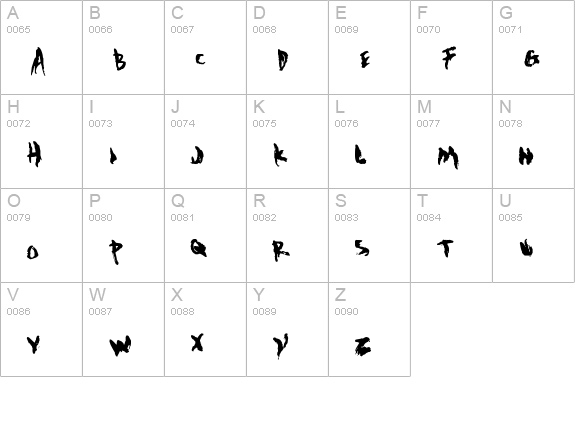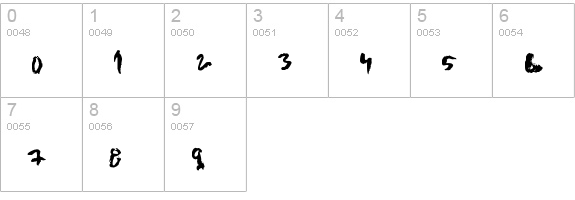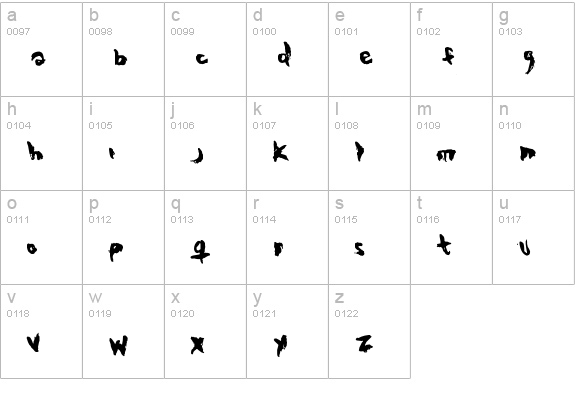
The Evil Cop Font Details
The Evil Cop font is a striking and captivating typeface that is sure to make a bold statement. With its sharp edges, twisted lines, and sinister aura, this font is perfect for adding a touch of darkness and mystery to any design project. Inspired by the enigmatic world of crime and corruption, The Evil Cop font is designed to convey a sense of fear and intimidation. Its unconventional letterforms and dramatic strokes create a visually arresting effect that commands attention and leaves a lasting impression. But what sets The Evil Cop font apart is not just its captivating design, but also the fact that it is free! Yes, you heard it right. This unique and powerful font can be freely downloaded at FontsMarket.com. Now you can unleash your creativity without any financial constraints. Whether you are working on a poster for a crime thriller movie, designing a book cover for a gripping detective novel, or creating a logo for a mysterious brand, The Evil Cop font will help you achieve the perfect balance between elegance and edginess. Its versatility allows it to work seamlessly in various design contexts, making it a valuable addition to any designer's toolkit. So, why wait? Don't miss out on this fantastic opportunity to enhance your designs with The Evil Cop font. Download it for free at FontsMarket.com and let your imagination run wild. Unleash the darkness within and captivate your audience with the mesmerizing allure of The Evil Cop font.